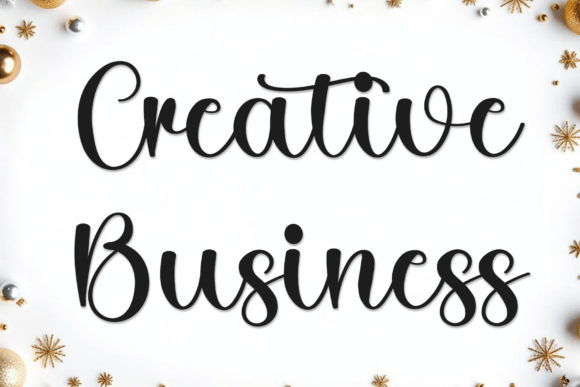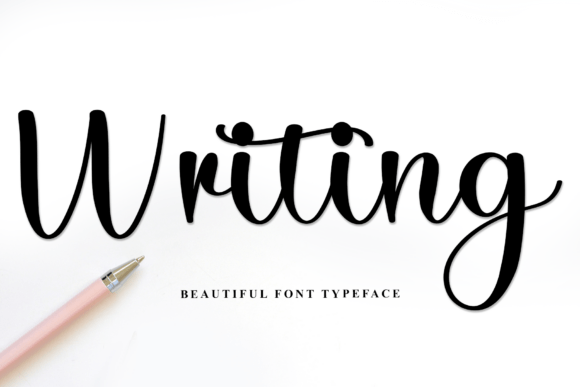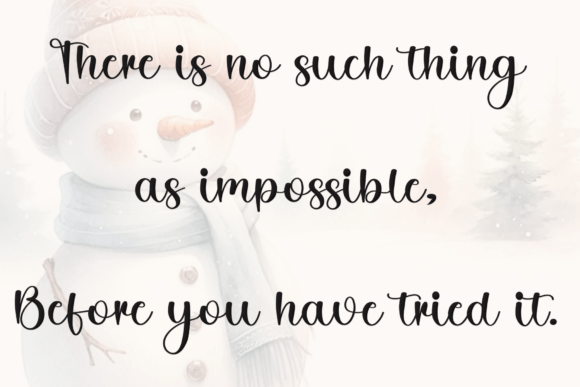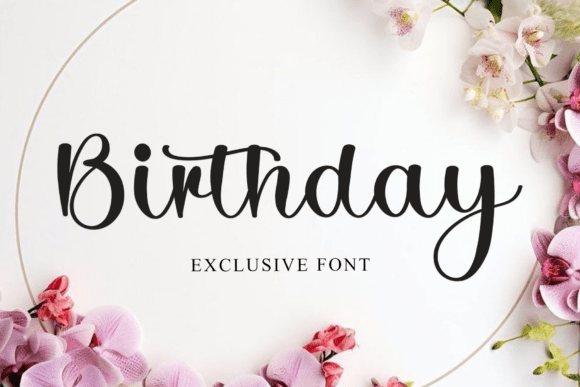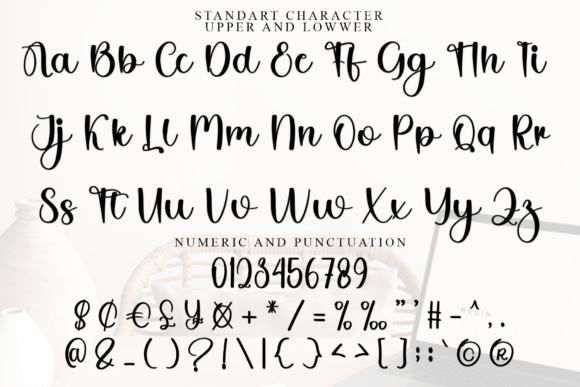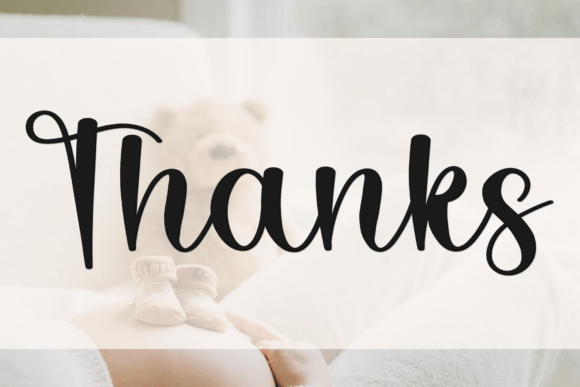
The Magic of Besties Christmas Font: A Designer’s Delight
• ✨ Festive and Whimsical: Besties Christmas Font is the perfect blend of decorative elements and playful flair, making it ideal for holiday-themed projects.
• 🎉 Versatile: Use it for greeting cards, gift tags, social media posts, or any other holiday project that needs a touch of magic.
A Few Quirks to Consider
While Besties Christmas Font is a stunning typeface, there are a few things to keep in mind:
• ⚠️ Legibility at Small Sizes: As with many decorative fonts, Besties Christmas may not be the best choice for body text or small font sizes. Use it for headlines or titles to make the most of its charm.
• 🤔 Glyph Overload: With so many glyphs and ligatures available, it’s easy to get carried away. Be mindful of your design balance to avoid overwhelming your audience.
The Story Behind Besties Christmas Font
Legend has it that the creator of Besties Christmas Font was inspired by the charming, hand-painted signs found in quaint holiday markets. They aimed to capture the essence of these festive signs and bring them to life in a digital typeface. The result is a font that’s equal parts magical and merry.
Q: Is Besties Christmas Font suitable for body text?
A: While Besties Christmas Font is stunning, it’s best used for headlines or titles. For body text, consider a clearer, more legible font to ensure your message is conveyed effectively.